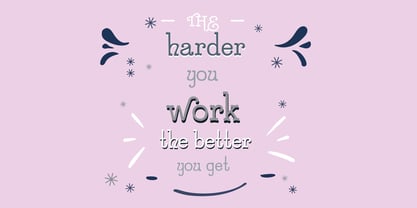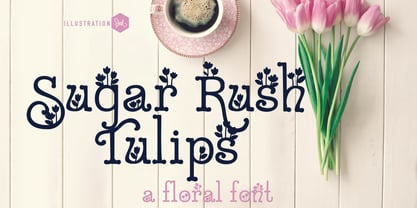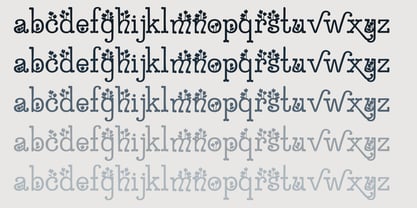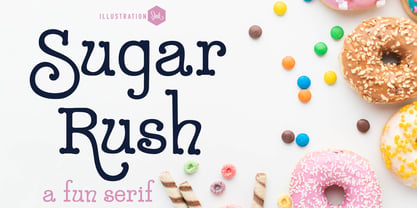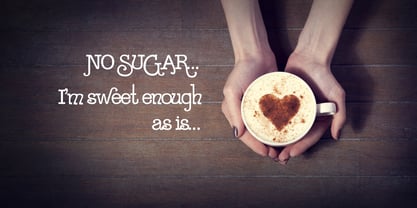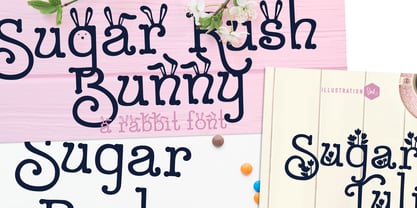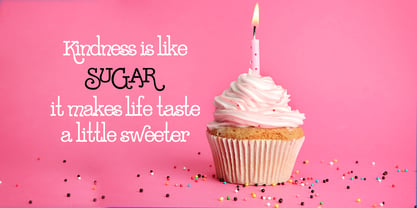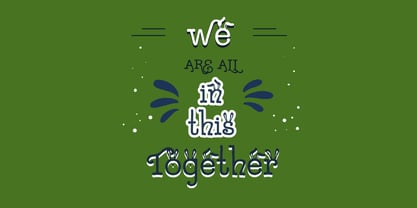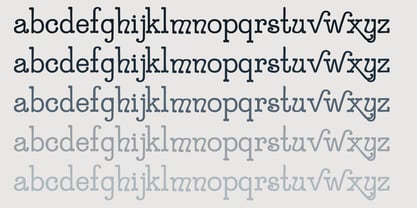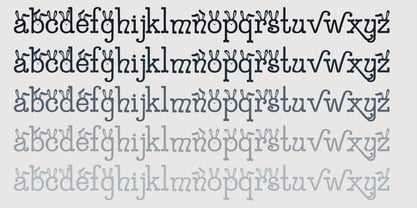
ZP Sugar Rush
by Illustration Ink
The ZP Sugar Rush Font Family was designed by Illustration Ink and published by Illustration Ink. ZP Sugar Rush contains 11 styles and family package options. More about this family
This hand-crafted font is a whimsical, serif with multiple variations including bunny ears and tulips. A hand-crafted font is a font that is designed to look like it was written by hand. It is often used for invitations, greeting cards, and other items. Handwritten fonts can be either formal or informal, and they can be used for a variety of purposes. Some of the characteristics of handwritten fonts include: The letters are not perfectly uniform in size or shape. There may be slight variations in the spacing between letters and words. The font may have a "wiggly" or "squiggly" appearance. The font may be difficult to read at small sizes. Handwritten fonts can be a great way to add a casual touch to your designs. They can also be used to create a sense of nostalgia or whimsy. However, it is important to choose a handwritten font that is appropriate for the project you are working on. A formal handwritten font may not be appropriate for a casual invitation, while an informal handwritten font may not be appropriate for a corporate document.
ZP Sugar Rush